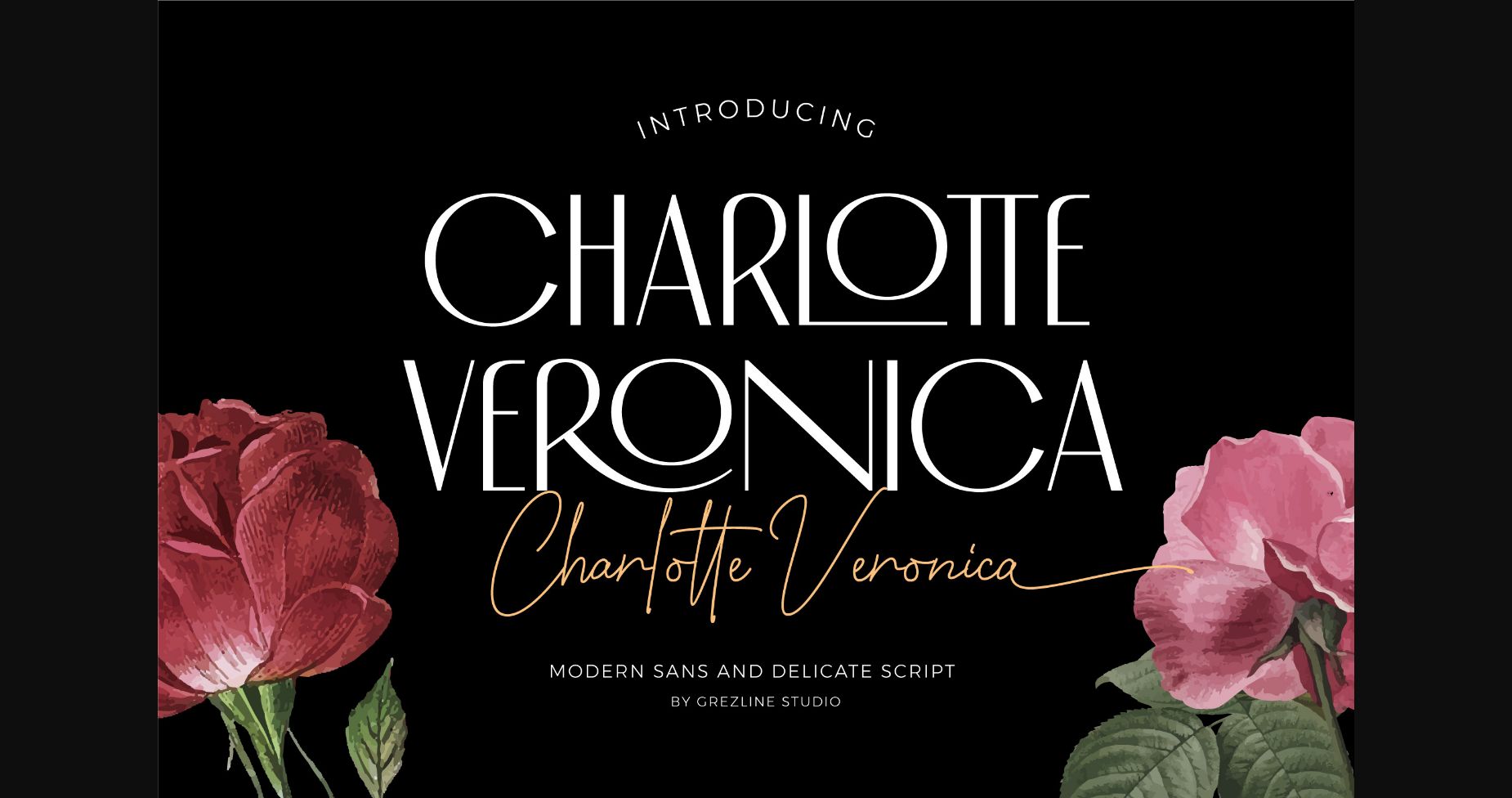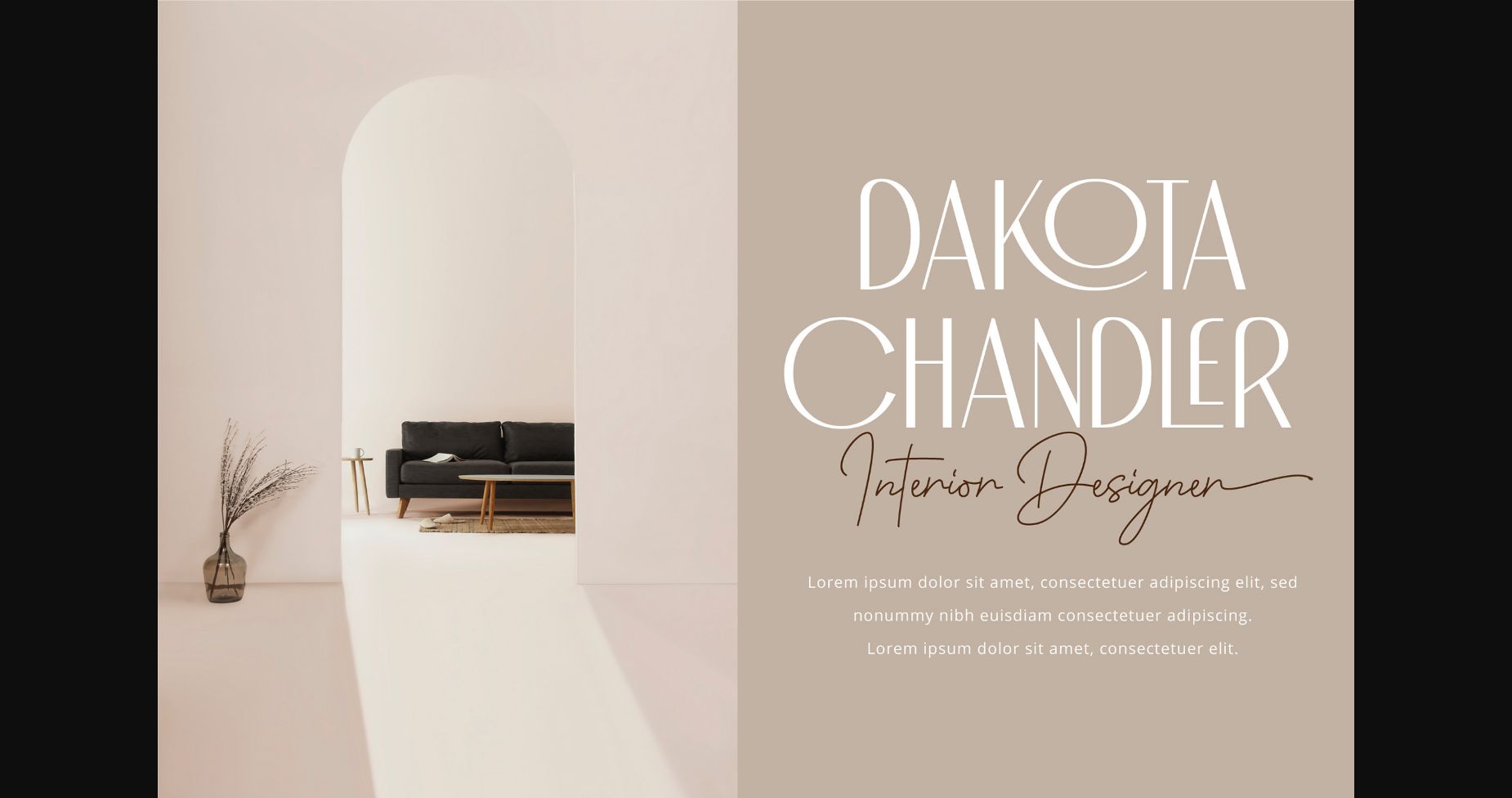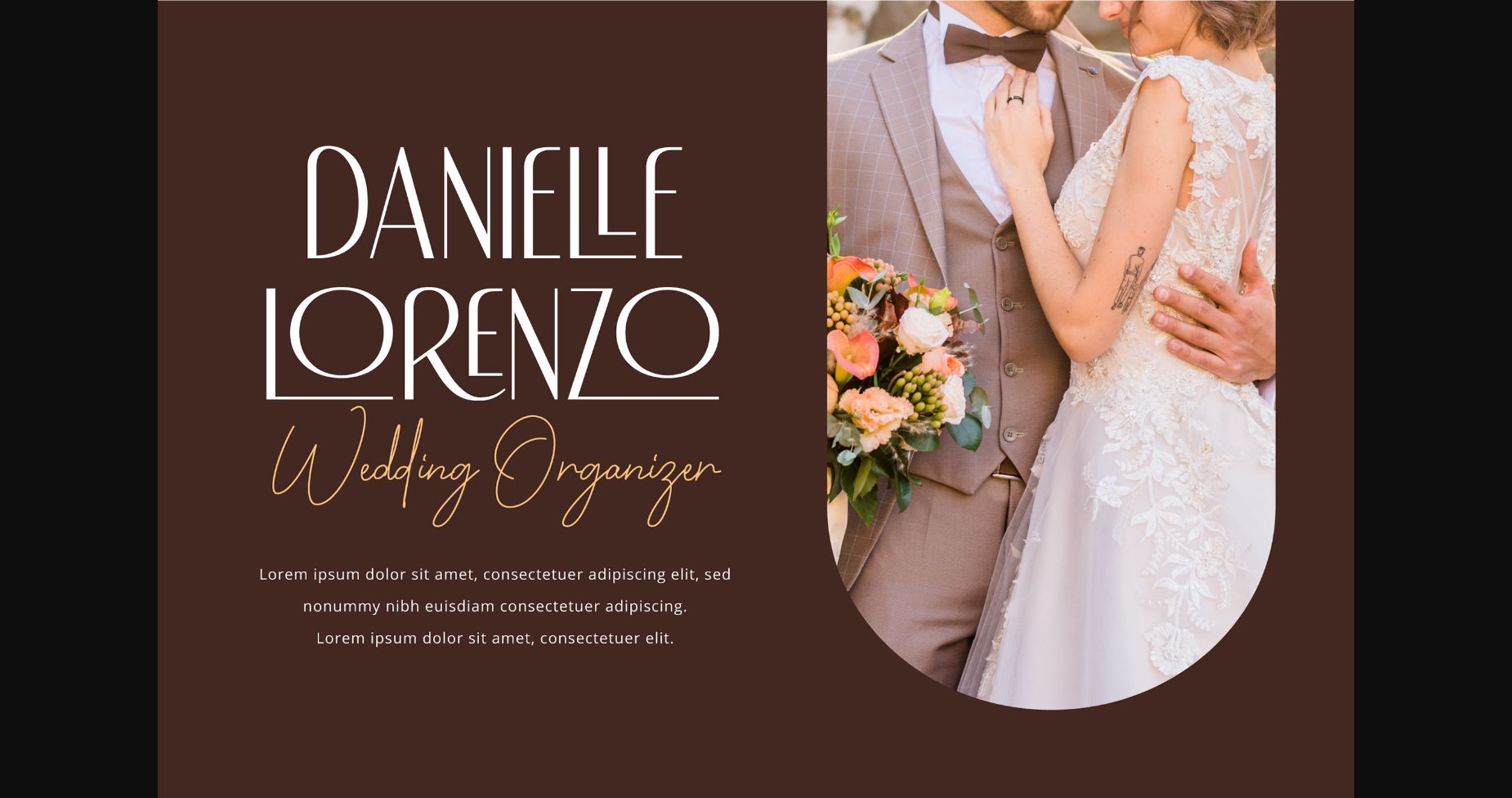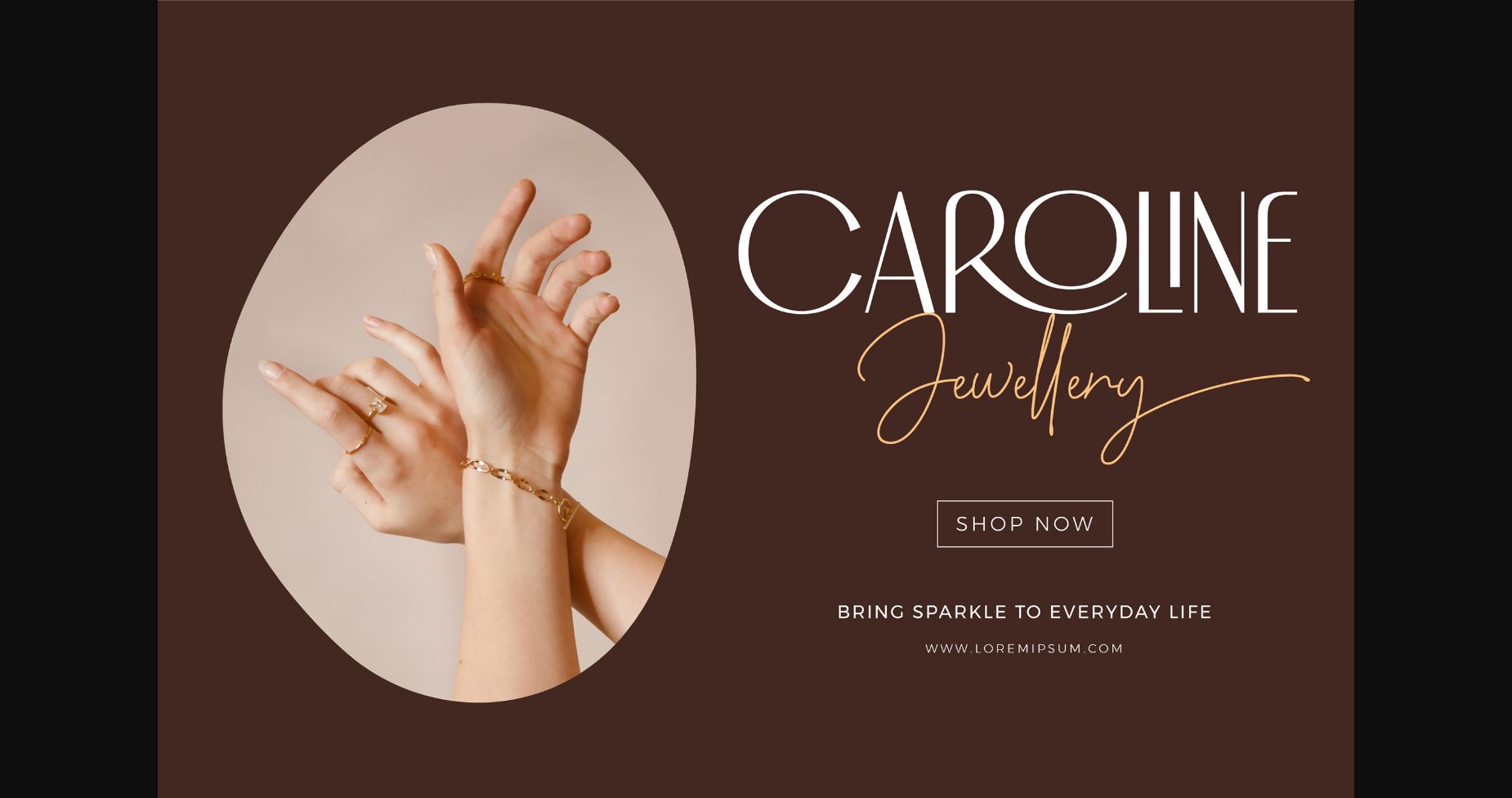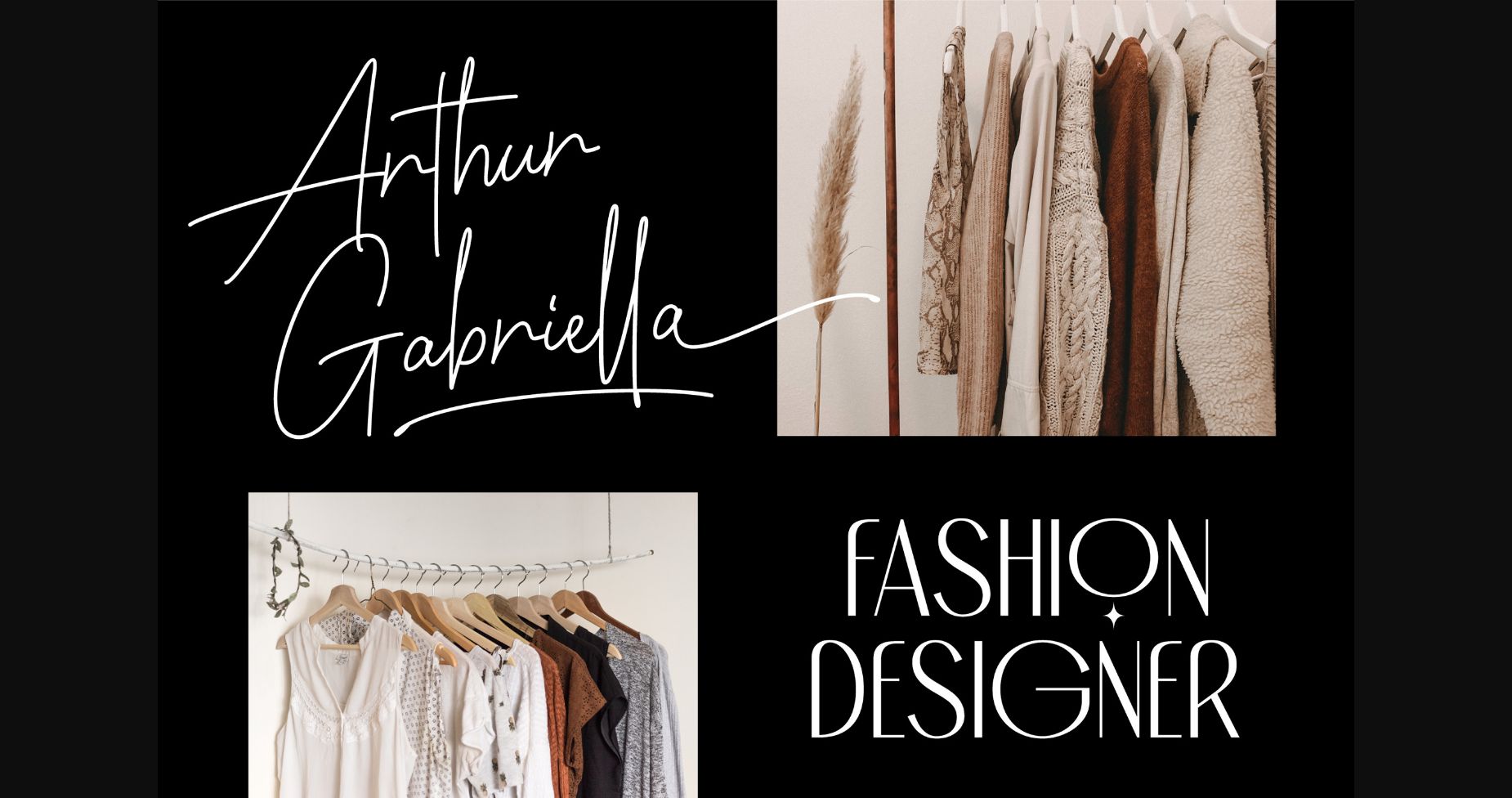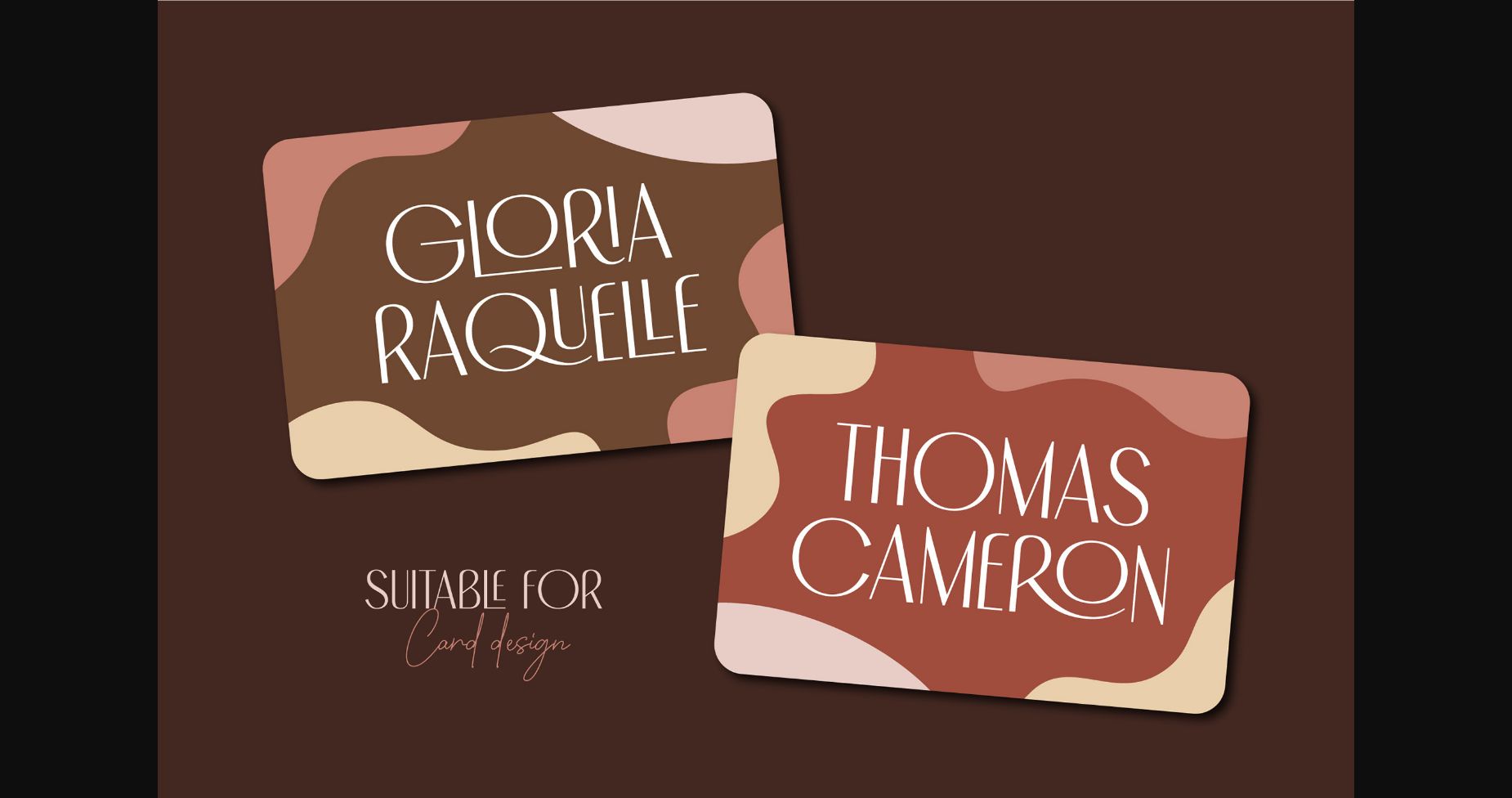
About Charlotte Veronica Font
Charlotte Veronica is a display font crafted for fashion design needs. Charlotte Veronica is also usable in a wide range of works such as invitations, labels, logos, magazines, books, greeting/wedding cards, packaging, stationery, novels, labels, or any type of advertising purpose.